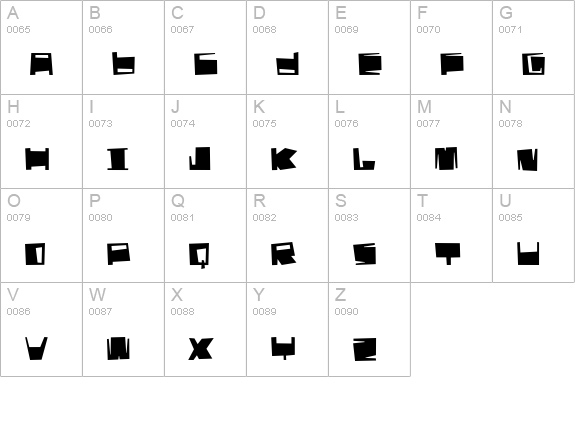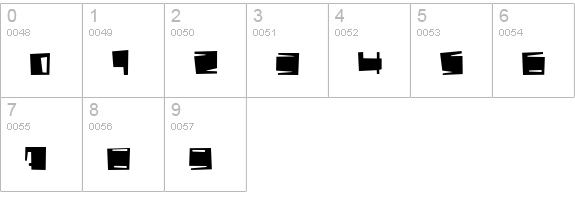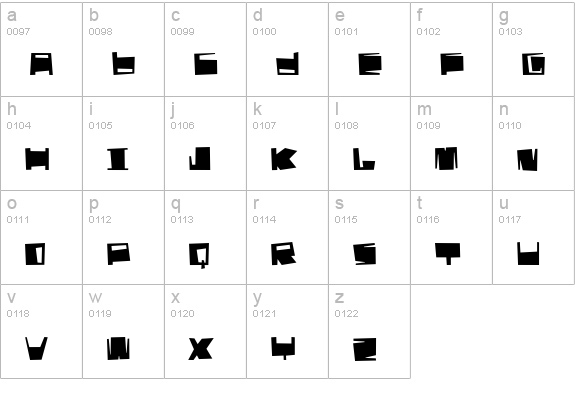
quatro dead mosquito's Font Details
Introducing the captivating and versatile Quatro Dead Mosquito's font, a true masterpiece in the world of typography. This exquisite font boasts a unique blend of elegance and edginess, making it perfect for a wide range of creative projects. With its intricate letterforms and attention to detail, Quatro Dead Mosquito's font is sure to grab attention and leave a lasting impression. Whether you are designing a logo, creating eye-catching titles, or crafting stunning posters, this font will elevate your work to new heights. What sets Quatro Dead Mosquito's font apart is not only its stunning aesthetics but also its exceptional functionality. This font offers a wide range of glyphs and ligatures, allowing you to experiment with different letter combinations and unleash your creativity. The versatility of this font knows no bounds, making it a must-have for any designer or typographer. And the best part? Quatro Dead Mosquito's font is available for free! Yes, you heard that right. You can freely download this extraordinary font at FontsMarket.com, your one-stop destination for high-quality fonts. Whether you're a professional designer or a passionate hobbyist, this font will be a valuable addition to your collection. Don't miss the chance to experience the beauty and versatility of Quatro Dead Mosquito's font. Download it for free today at FontsMarket.com and unlock a world of endless design possibilities. Elevate your projects, captivate your audience, and make a bold statement with this remarkable font.